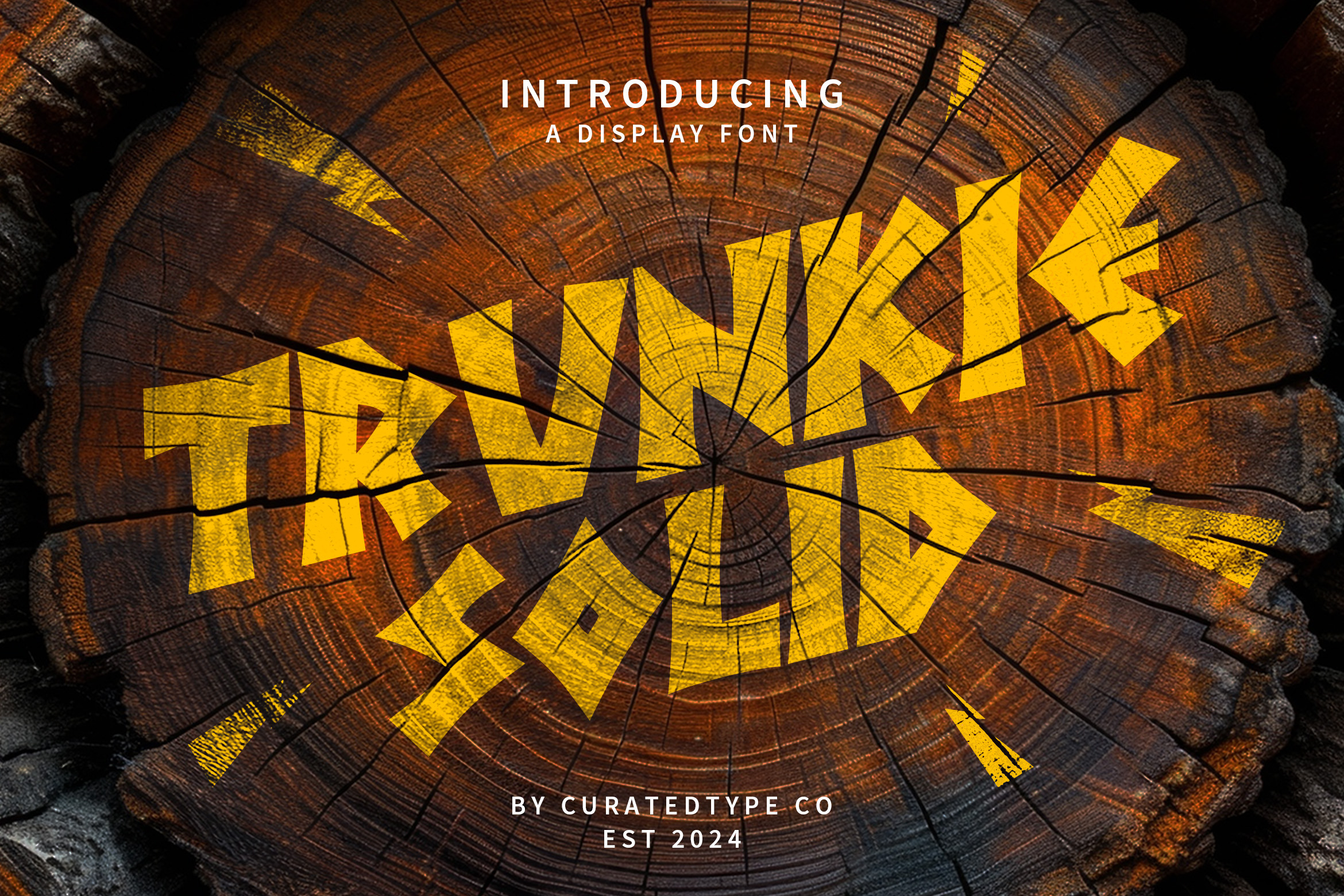
Trunkie - Solid Font
Unleash Trunkie, a bold and unique typeface inspired by the structure of bones—perfect for adding a playful edge to game design! Whether crafting fantasy worlds, spooky themes, or vibrant character designs, Trunkie brings a one-of-a-kind style that stands out on any screen
- 2 Font Solid Bold & Thin
- Standard letter A-Z and a-z
- Numeral, Symbol, and Punctuations
- Alternate and Ligature
- OpenType Feature